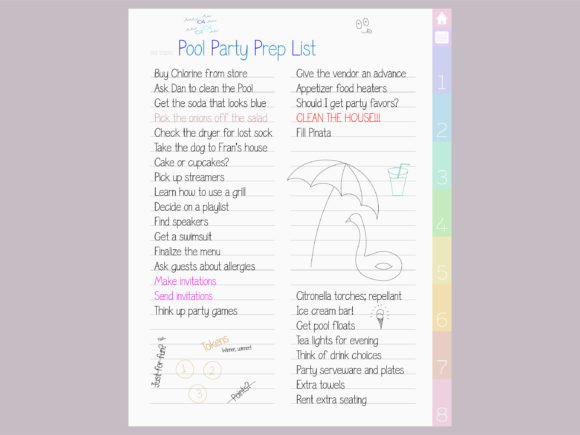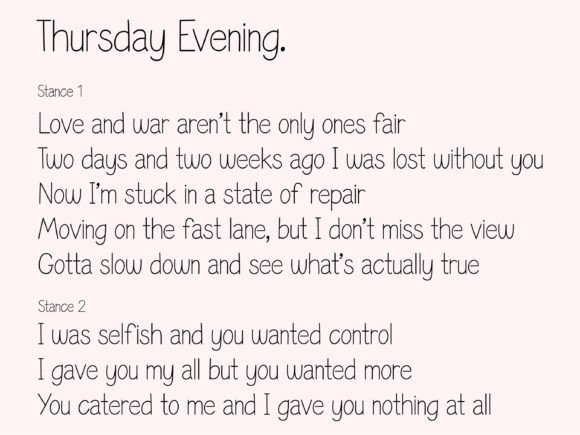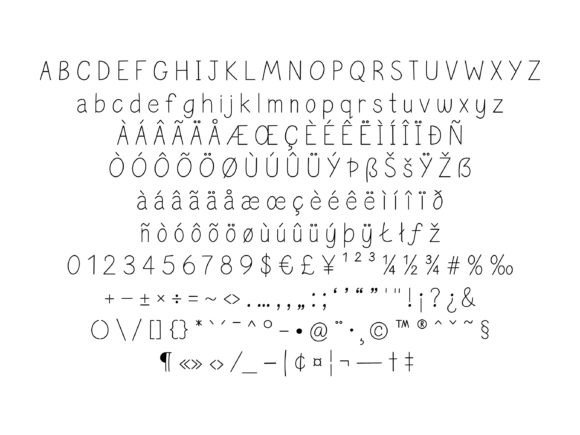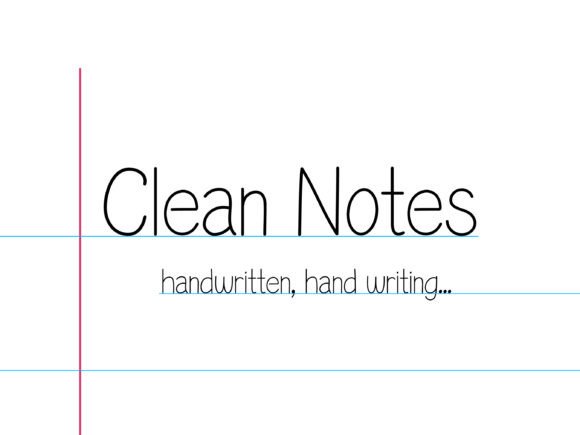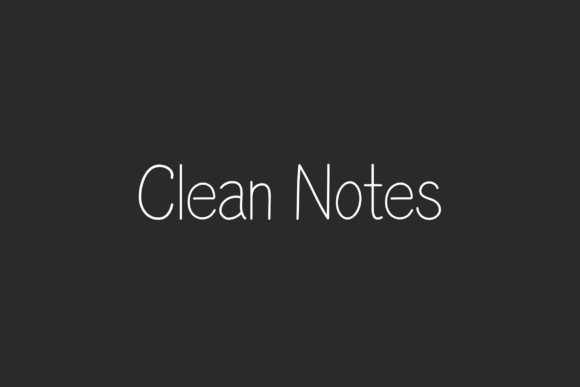
The Quest for the Perfect Handwritten Font: Discovering Clean Notes
I’ll never forget the time I was working on a project, pouring my heart and soul into creating beautiful, handwritten notes for a client’s branding package. I had a vision of elegant, cursive script that would make their notes stand out, but I was struggling to find the right font. That’s when I stumbled upon Clean Notes, and it changed the game. In this article, I’ll share my experience with this amazing font, its features, and how to make the most of it.
A Personal Review: What I Love About Clean Notes
Clean Notes has quickly become one of my go-to fonts for any project that requires a handwritten touch. Here’s what I love about it:
- ✨ Beautifully legible: Clean Notes strikes the perfect balance between elegance and readability. It’s perfect for notes, journals, and even headings.
- ✅ Classic handwritten look: This font has a timeless quality that makes it suitable for a wide range of projects, from modern designs to vintage-inspired creations.
While Clean Notes is an excellent font, there are a few minor quirks to be aware of:
- 🤔 Limited multilingual support: Clean Notes primarily supports English and some European languages. If you need to work with non-Latin scripts, you might need to explore alternative fonts.
- ⚠️ No condensed or italic variations: While Clean Notes has a range of stylistic alternates, it doesn’t offer condensed or italic versions. This might limit its use in certain design contexts.
The Story Behind Clean Notes
Clean Notes was designed with the goal of creating a beautiful, handwritten font that would make notes and journals more enjoyable. The designer aimed to craft a font that was both elegant and legible, making it perfect for everyday use. While the real story behind Clean Notes might be unknown, its impact on designers and crafters is undeniable.